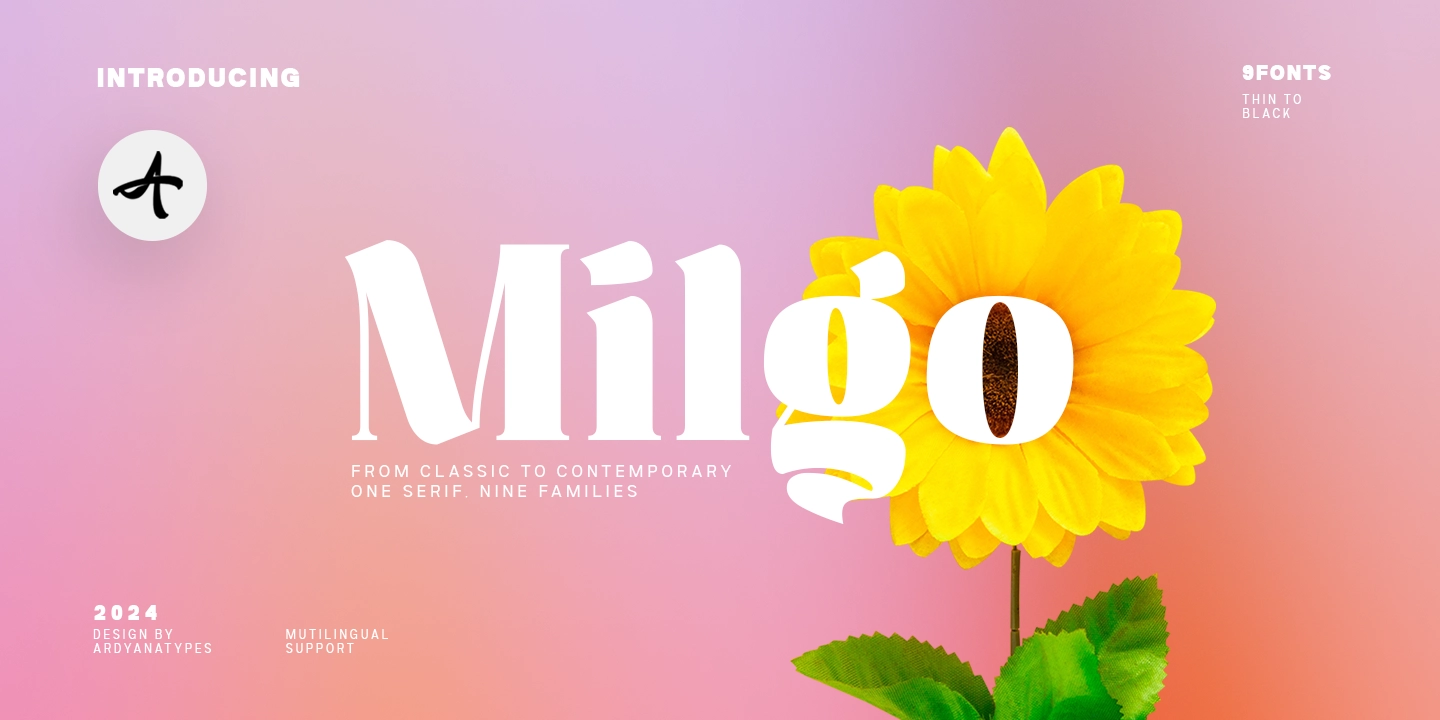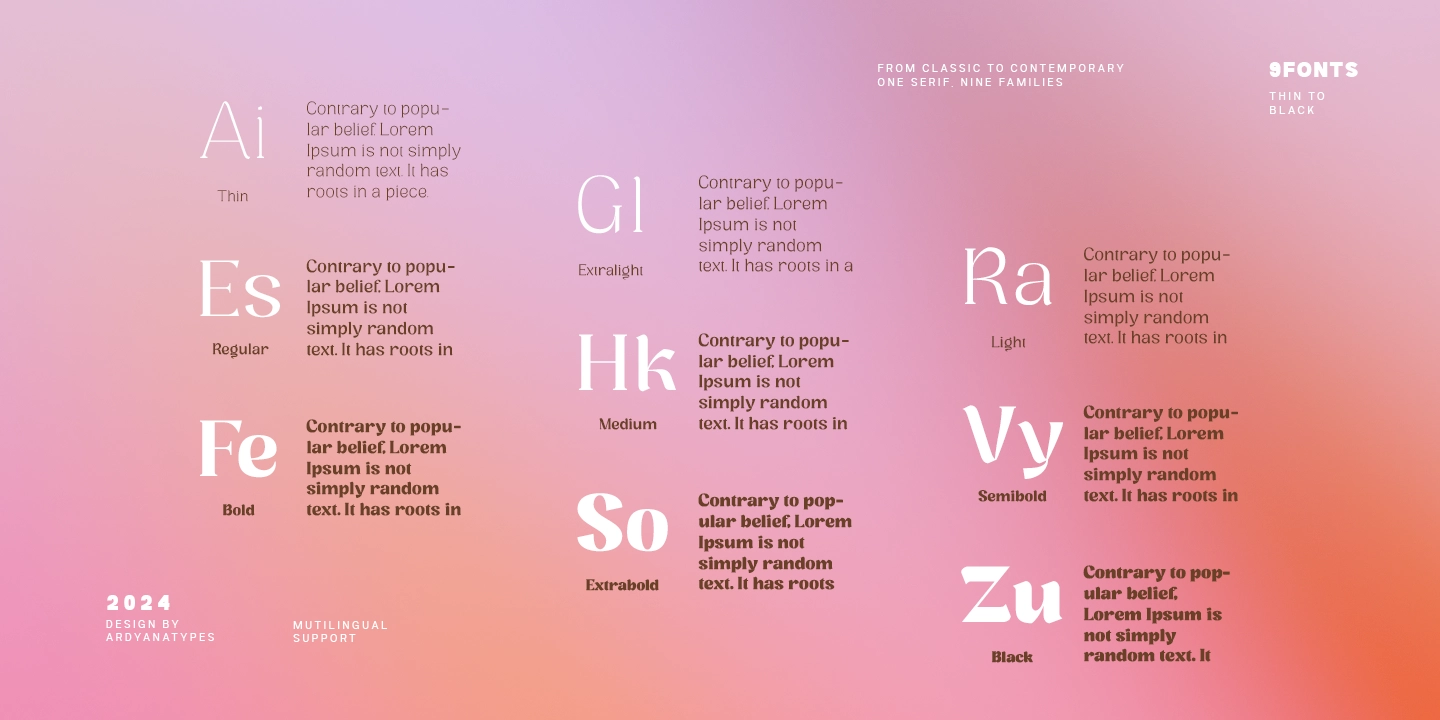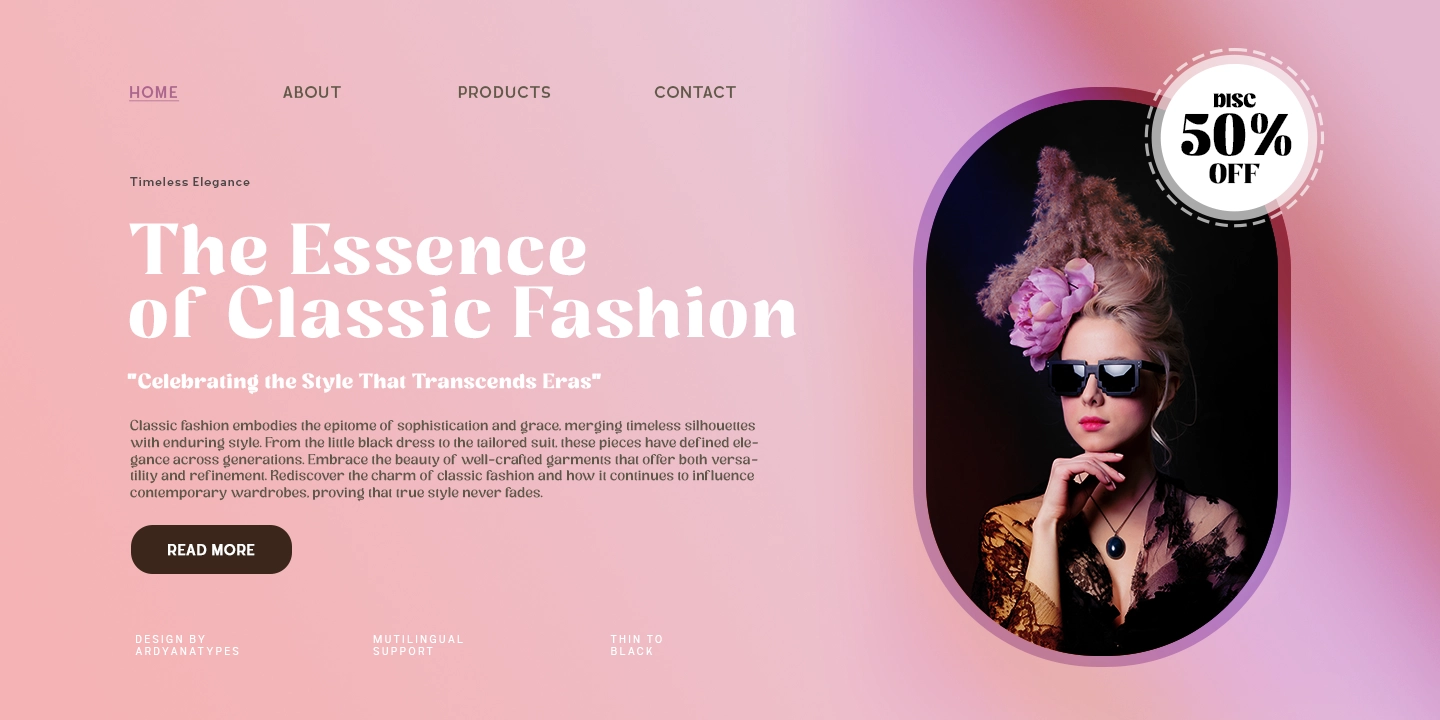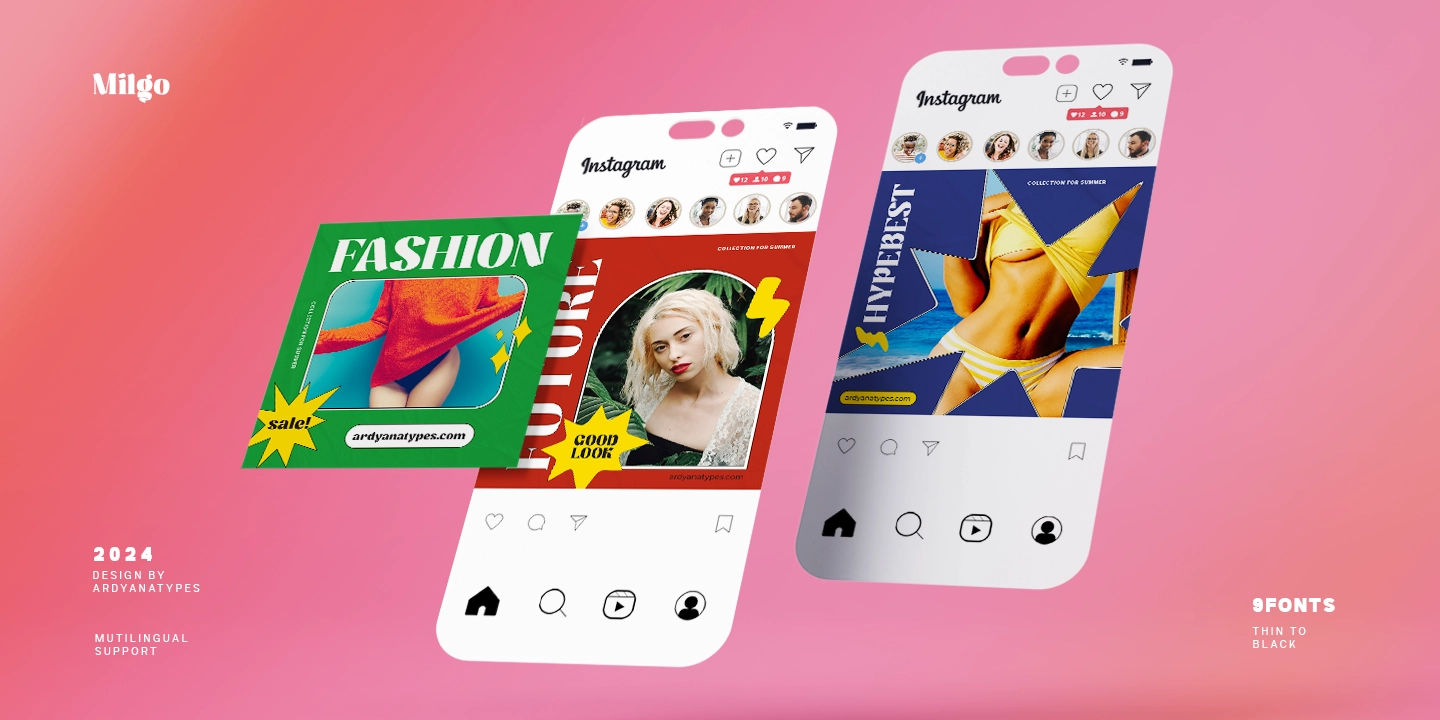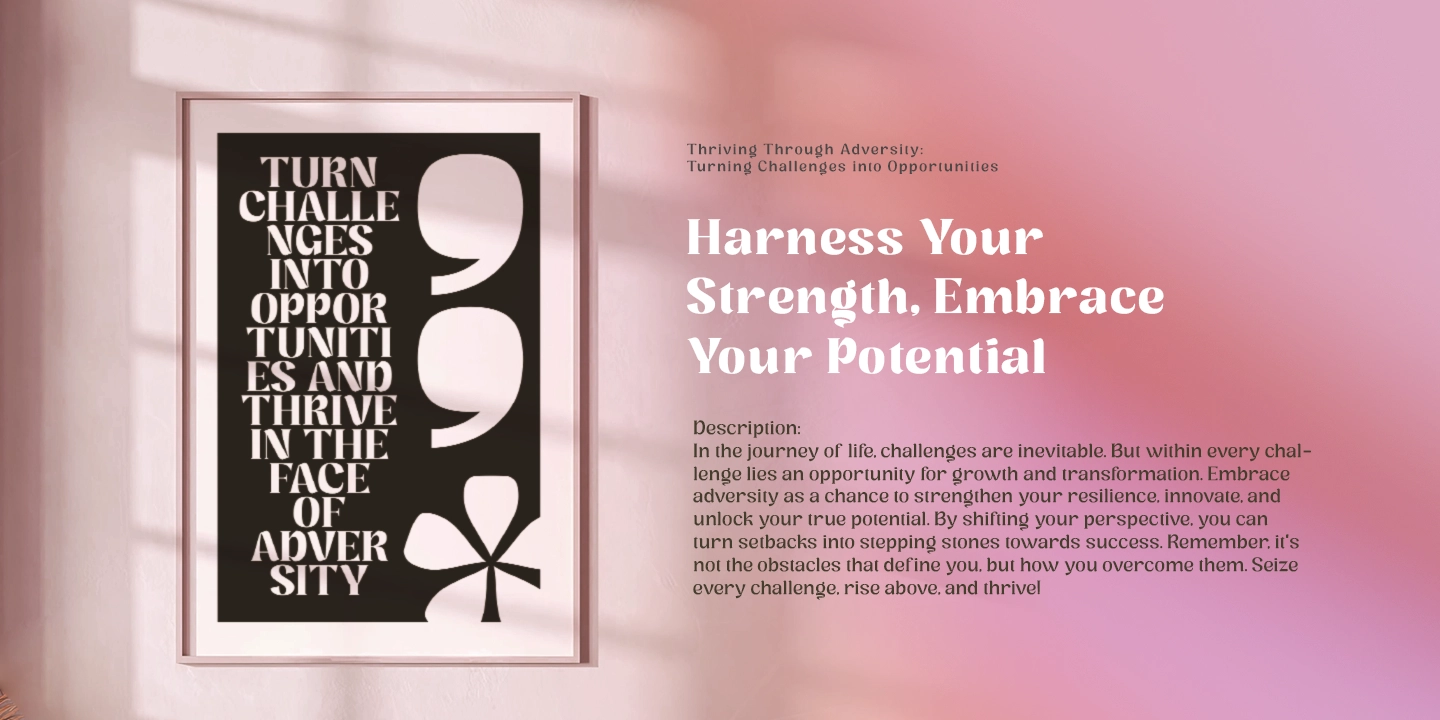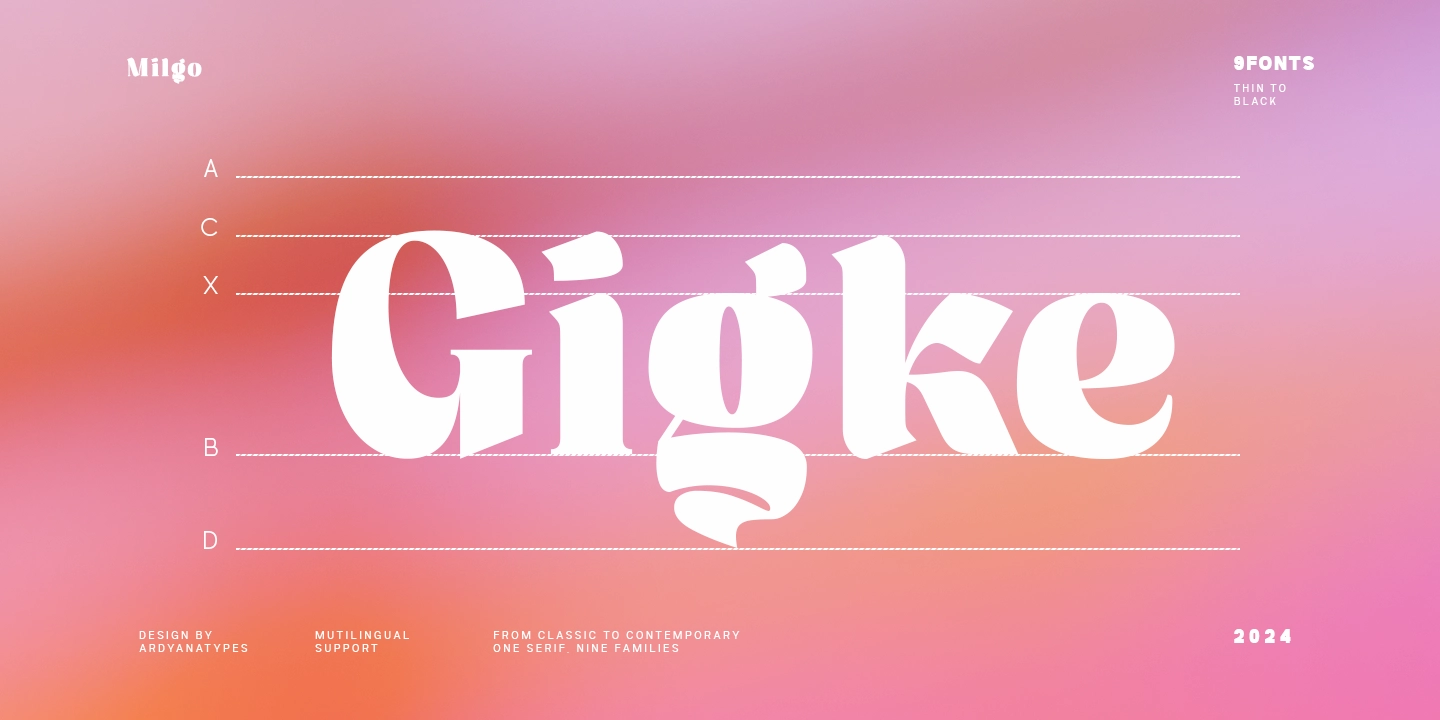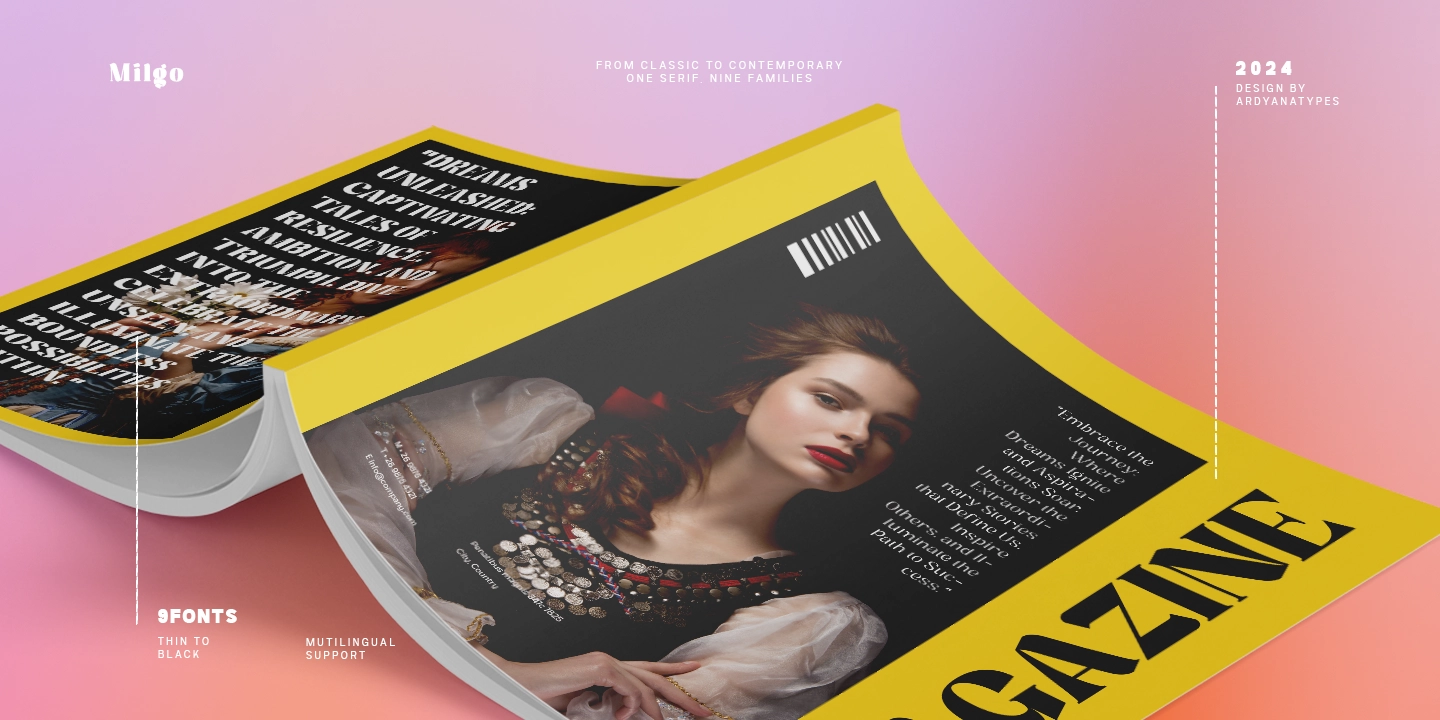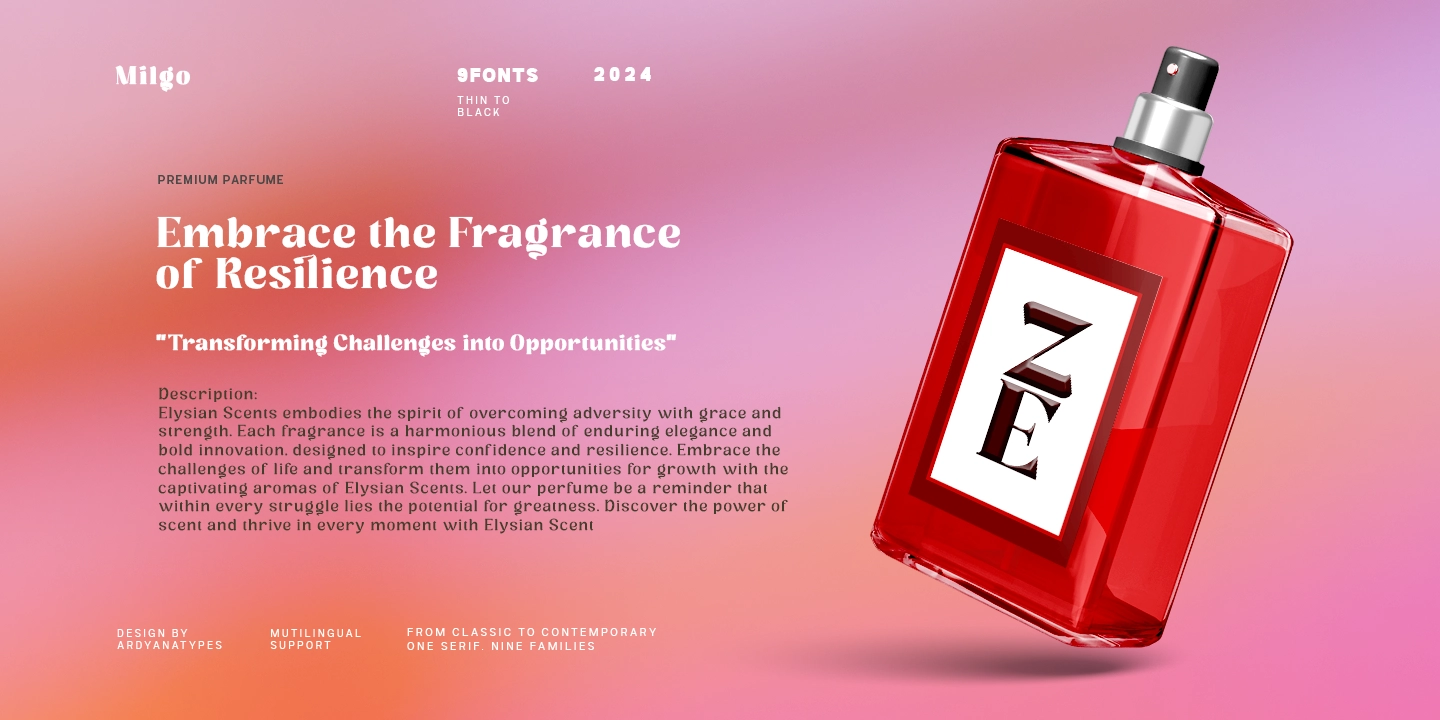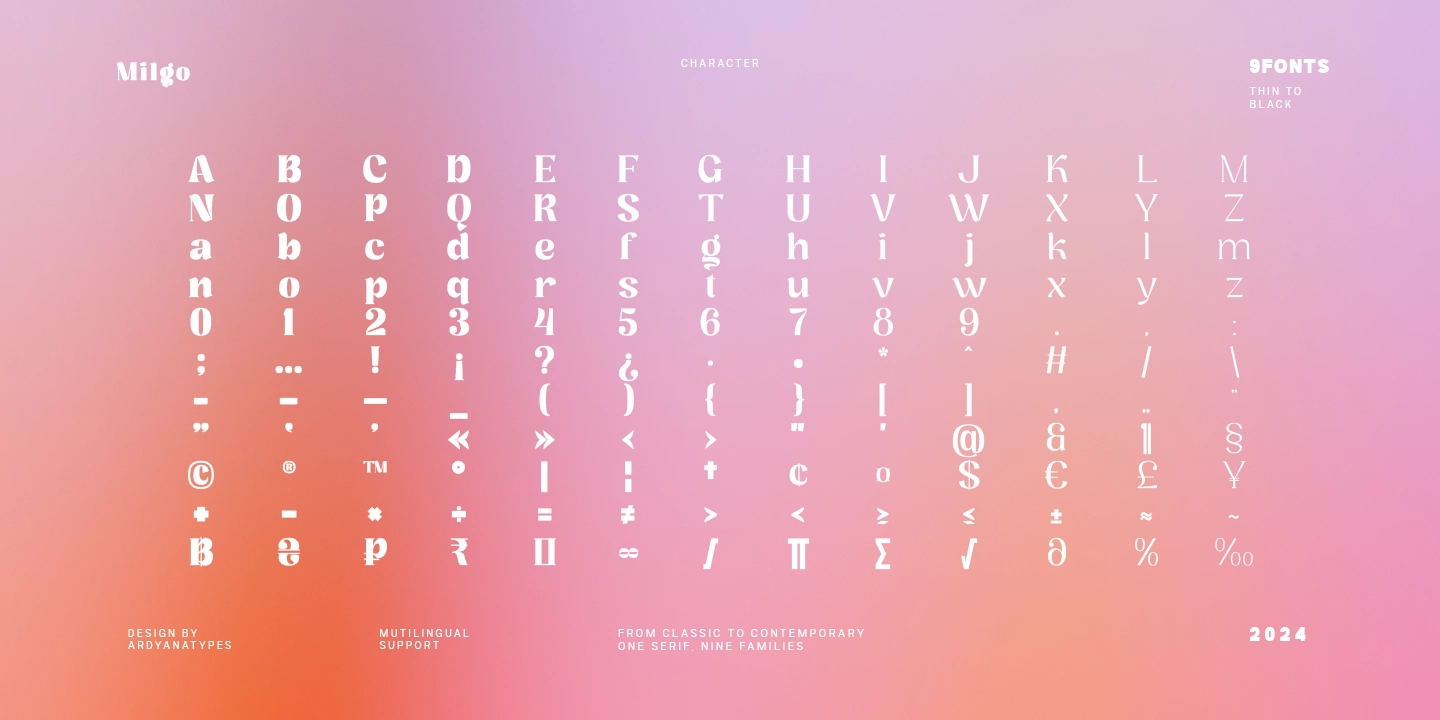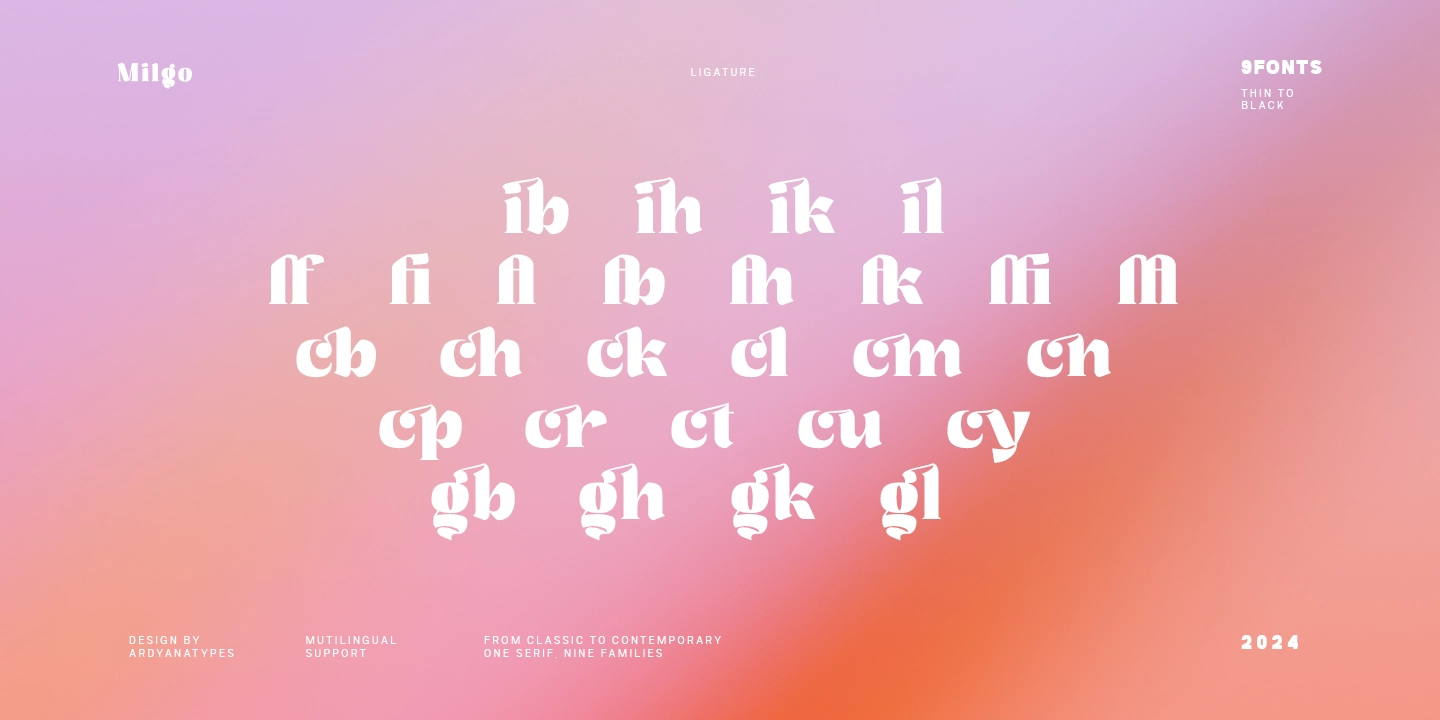
Milgo
Introducing Milgo, a beautifully crafted serif font that seamlessly blends modern elegance with classic inspiration. Drawing from the timeless aesthetics of historical typefaces, Milgo brings a sophisticated and refined touch to your design projects.
Milgo comes equipped with various OpenType features, offering a range of stylistic alternates, ligatures, and swashes to enhance your typography.
With extensive multilingual support, Milgo ensures your message is communicated effectively across different languages, making it perfect for global projects. Versatile Design Whether you're working on branding, editorial Design, packaging, or web design, Milgo's versatile nature makes it an ideal choice for any project that seeks a balance of classic and modern aesthetics.
Milgo is perfect for product designs that evoke a sense of timeless elegance while maintaining a contemporary edge. Its sophisticated and versatile style suits it for Branding and Logo Design, Editorial and Book Design, Packaging Design, and Web and Digital Design.
Elevate your design projects with the elegance and sophistication of Milgo, the modern classic serif font that pays homage to the timeless beauty of classic typefaces.
• ffi ffi
• ffl ffl
• cb cb
• ch ch
• ck ck
• cl cl
• cm cm
• cn cn
• cp cp
• cr cr
• cu cu
• cy cy
• fb fb
• fh fh
• fk fk
• fl fl
• gb gb
• gh gh
• gk gk
• gl gl
• ib ib
• ih ih
• ik ik
• il il